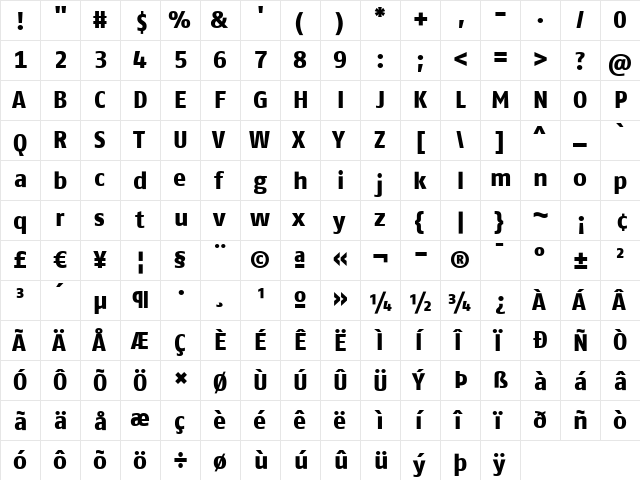
FagoNoTf Extrabold Font Preview
FagoNoTf Extrabold
| Foundry | Ole Schaefer, . Published by FontShop International for FontFont Release Fago is a trademark of FSI Fonts and Software GmbH |
Design Context for FagoNoTf Typeface
FagoNoTf offers clean, dependable letterforms without strong stylistic allegiance, making it a practical choice for designers who need flexibility. Its bold stroke weight gives it real presence on the page.